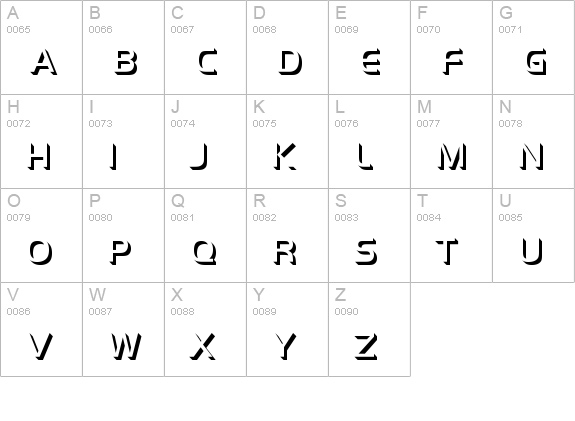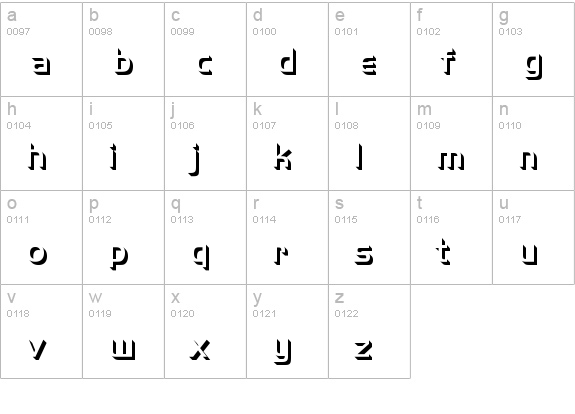
Handel Gothic Only Shadow D Light Font Details
Handel Gothic Only Shadow D Light is a refined, elegant variant in the Handel typeface family \xE2\x80\x94 well suited to elegant body text, refined sub-headings, and luxury branding.
Handel Gothic Only Shadow D Light font is an exquisite display typeface that exudes a sense of elegance and sophistication. With its unique shadowed design, this font adds depth and dimension to any project, making it perfect for headlines, titles, and logos. The Handel Gothic Only Shadow D Light font boasts a sleek and timeless aesthetic that effortlessly captures attention. Its clean lines and sharp edges create a modern feel while still maintaining a touch of classic charm. This font is the perfect choice for those looking to make a bold statement with their typography. What sets Handel Gothic Only Shadow D Light font apart is its versatility. Whether you're designing for a high-end fashion brand, a luxurious event invitation, or a cutting-edge technology company, this font adapts seamlessly to any concept or theme. Its clean and legible characters ensure readability, even at smaller sizes. And the best part? Handel Gothic Only Shadow D Light font is available for free download at FontsMarket.com! You can easily access this stunning font, enhancing your designs without spending a dime. This makes it an ideal choice for students, freelancers, and anyone on a tight budget. So, why wait? Unlock the potential of your designs with Handel Gothic Only Shadow D Light font. Download it for free today at FontsMarket.com and elevate your projects to new heights of style and sophistication.